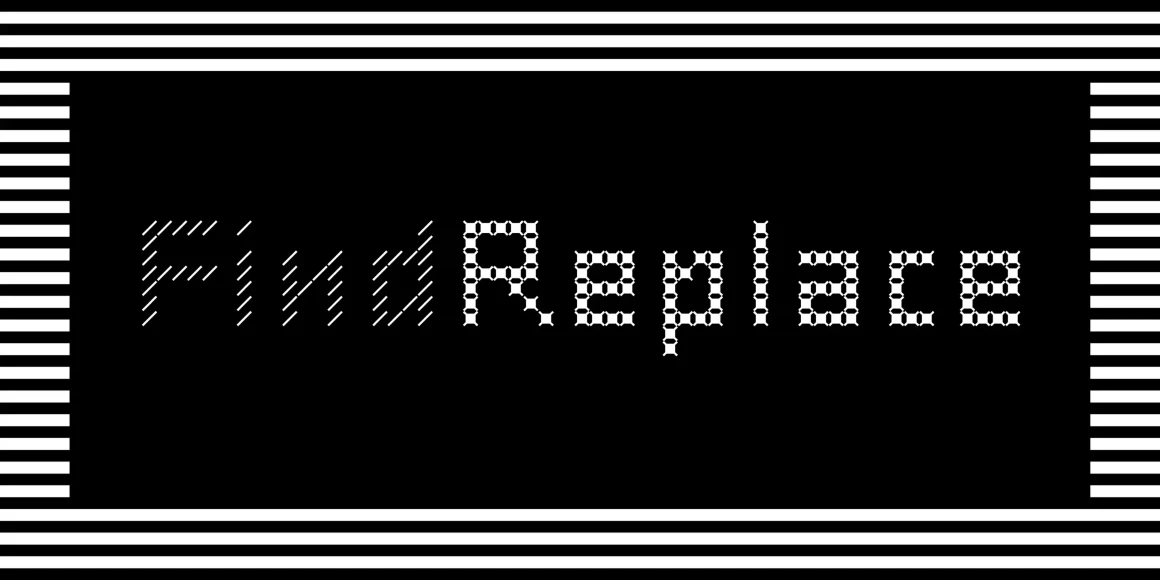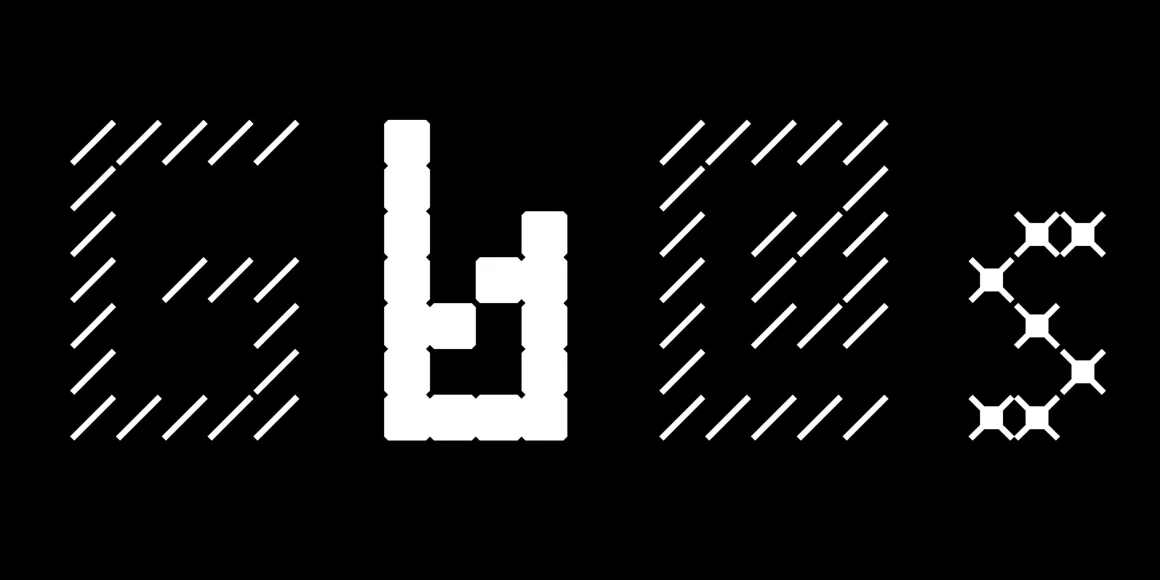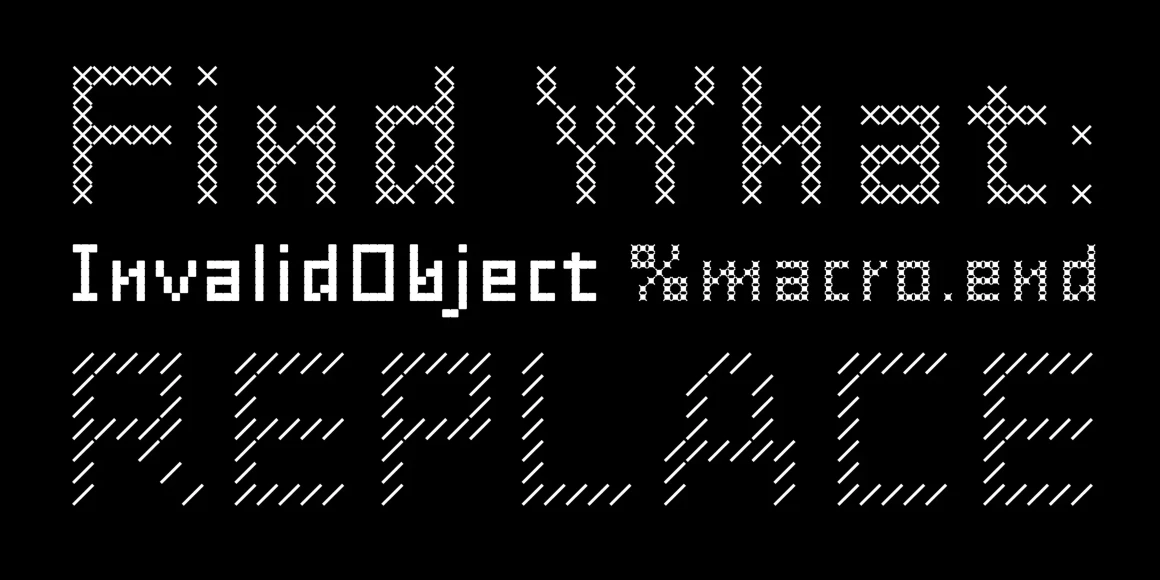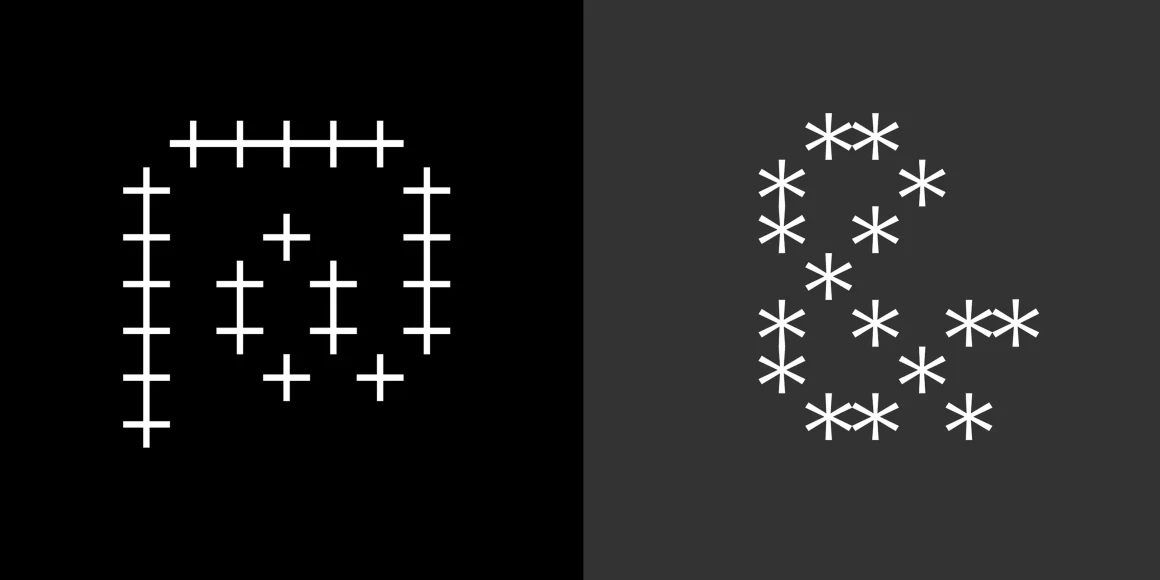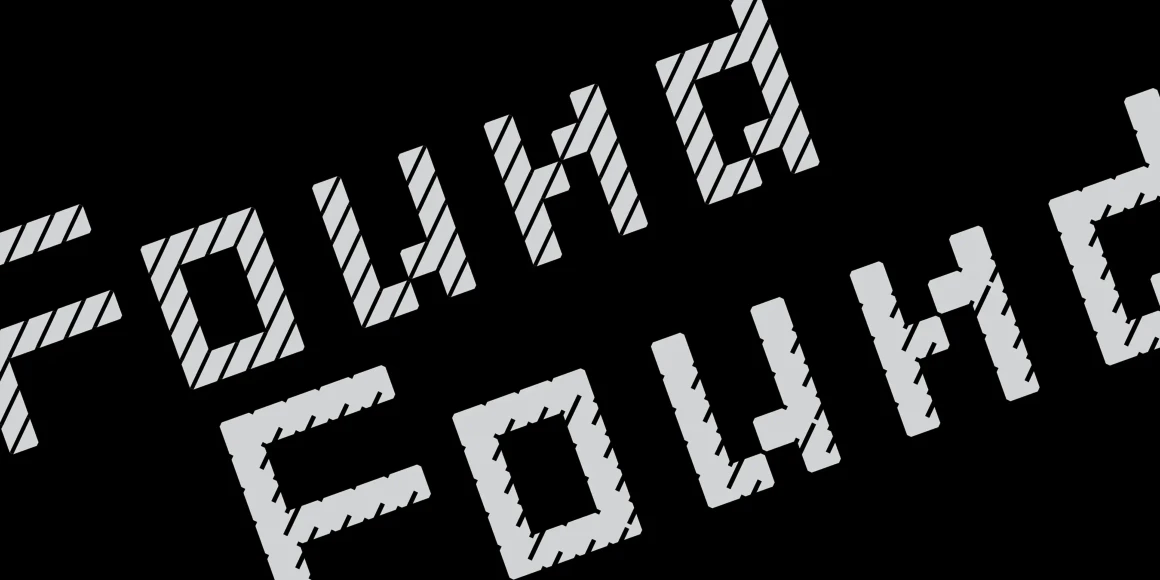
FindReplace
From Process Type Foundry
FindReplace is the result of tinkering with the typeface-making process while aiming for a resemblance to conventional letterforms. It was built by replacing a single line with progressively thicker versions of the same line throughout the entire font. The result is six weights, with identical metrics and kerning, that can replace one another for gradation effects or be layered in myriad ways. OpenType features include old style numerals, ornaments, and stylistic alternates.
Designed by Eric Olson